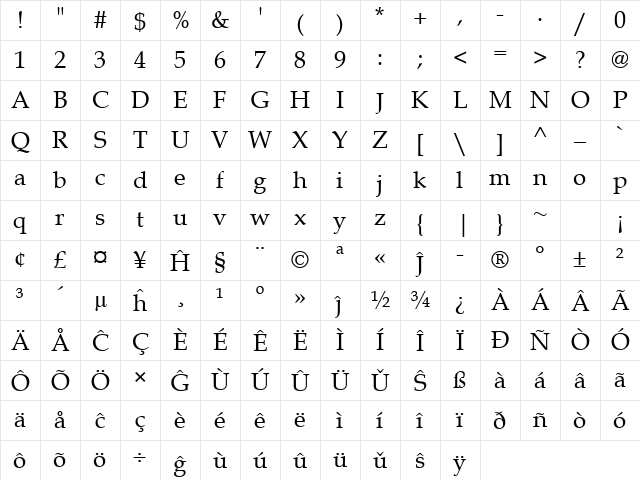
Complete Book Antiqua Eo Regular glyph index. Displaying only characters natively supported by Book Antiqua Eo Regular font.
Book Antiqua Eo is a composed and adaptable typeface that performs quietly and consistently across a wide range of design contexts.